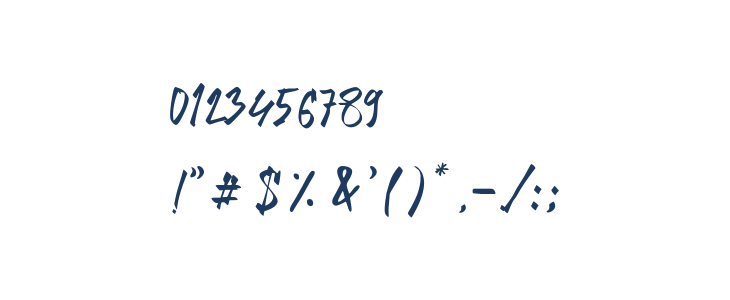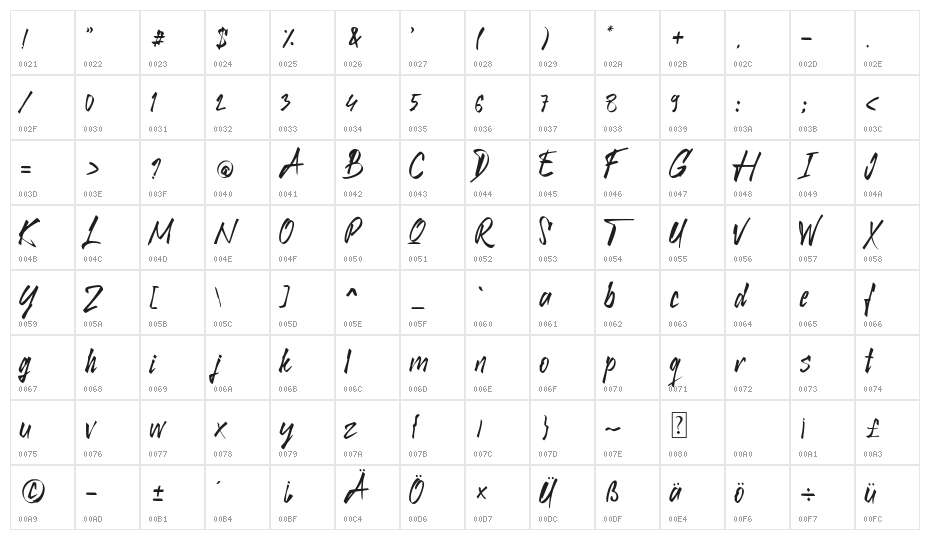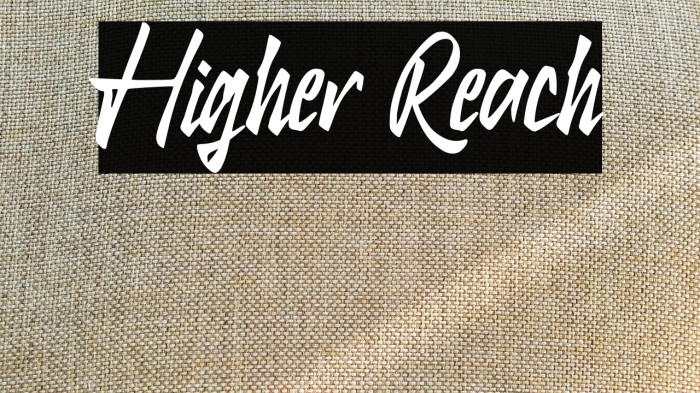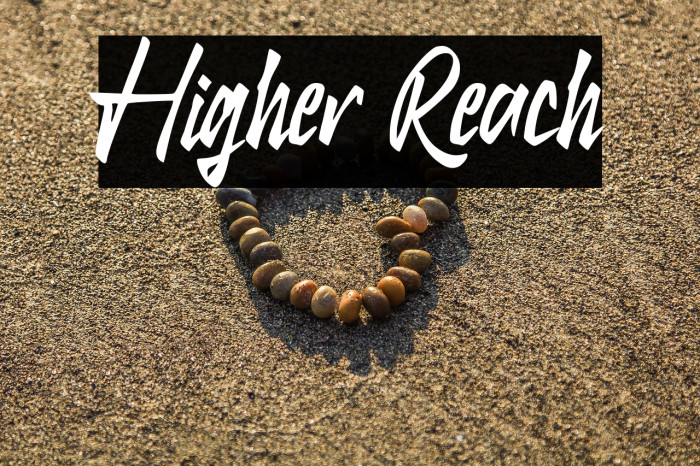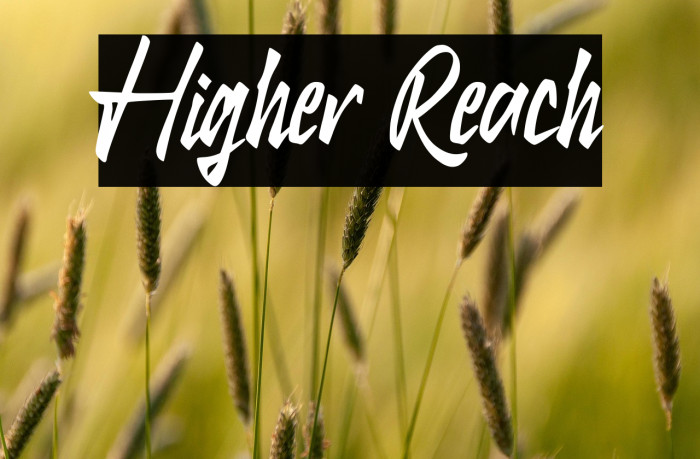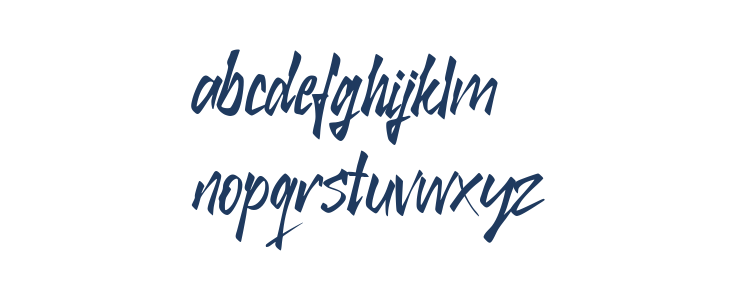
Higher Reach Font
Higher Reach Description
This font features a dynamic and expressive script style, characterized by its fluid and energetic strokes. The letters are interconnected with a natural flow, giving it a handwritten appearance. The uppercase letters are bold and slightly slanted, while the lowercase letters maintain a consistent rhythm with varying stroke widths. The numerals and special characters follow the same energetic style, making the font suitable for creative and artistic projects. Its unique flair and personality make it stand out, perfect for designs that require a personal touch.
| Proposed Projects | Ideal for branding, invitations, greeting cards, and artistic projects that require a personal and creative touch. |